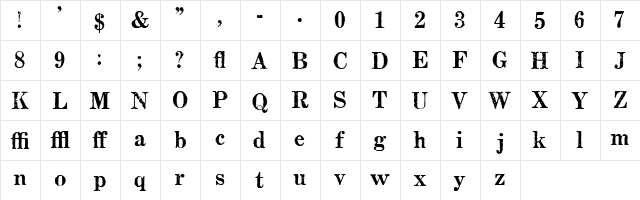
Matchwood Bold WF Regular
| Designer | Walden Font Co. |
Design Context for Matchwood Bold WF Typeface
Matchwood Bold WF taps into classic Western woodtype traditions — bold, characterful, and impossible to ignore. The heavy weight commands attention and anchors typographic hierarchies.
A natural fit for craft spirits, ranch branding, rodeo events, and Americana-inspired design work.
Font Pairing: Combine Matchwood Bold WF with a simple slab or neutral sans — period-accurate companions reinforce the vintage feel without competing for attention.
Pro Tip: Use Matchwood Bold WF for short, impactful bursts of text — it shines in poster headlines and product names rather than extended copy.